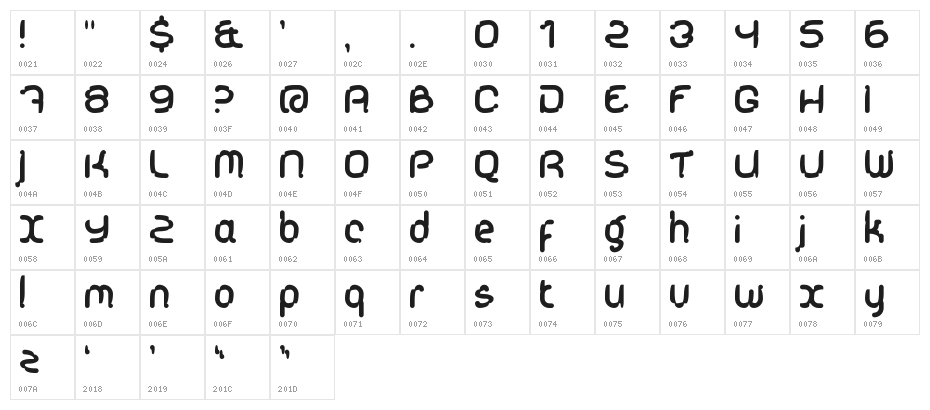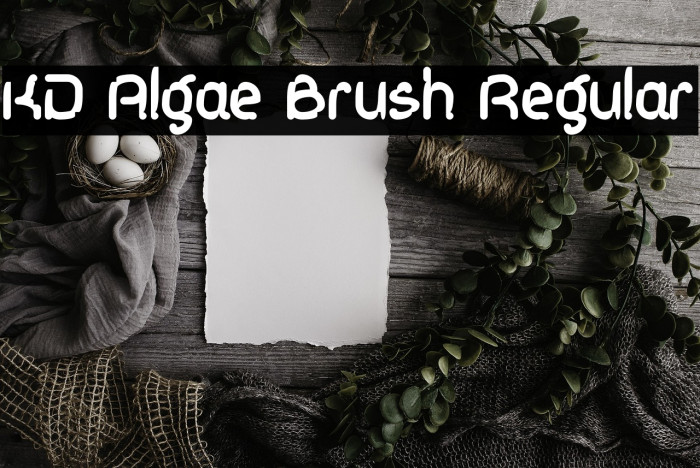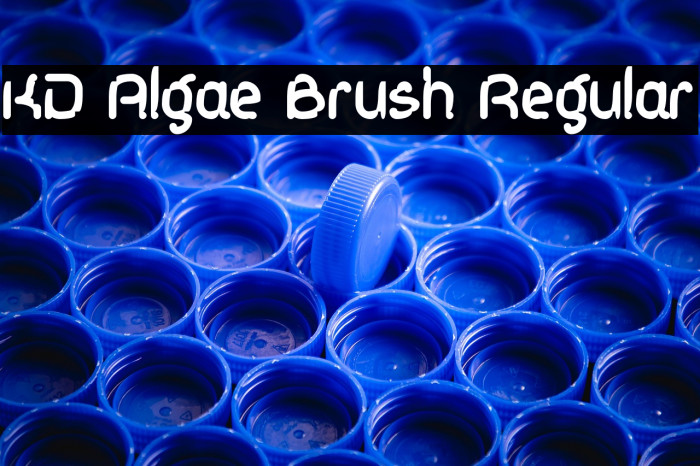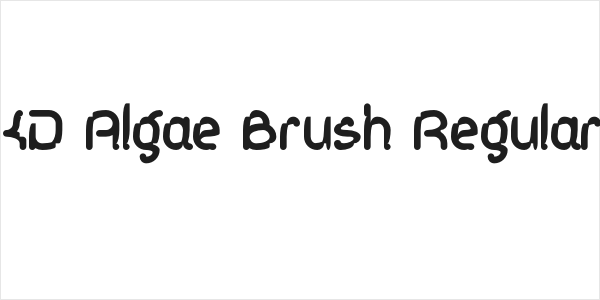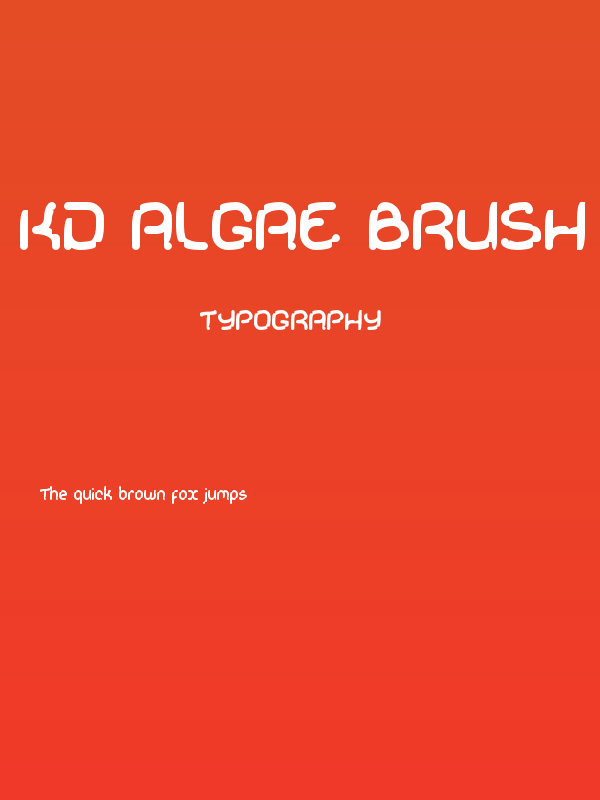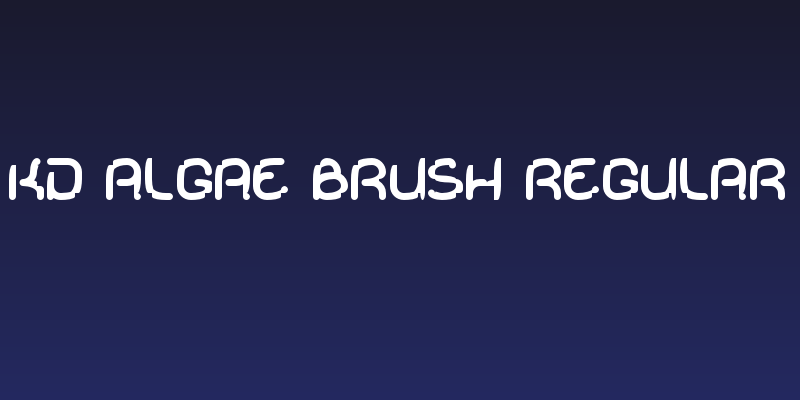
KD Algae Brush Regular Font
KD Algae Brush Regular Description
This font features a playful and organic design, characterized by its rounded and slightly irregular shapes. The strokes are bold and consistent, giving it a brush-like appearance that adds a sense of movement and fluidity. The characters have a unique, hand-drawn quality, with varying stroke widths that contribute to its dynamic look. The overall style is casual and approachable, making it suitable for creative and informal applications. The font maintains readability while offering a distinctive aesthetic that stands out in display settings.